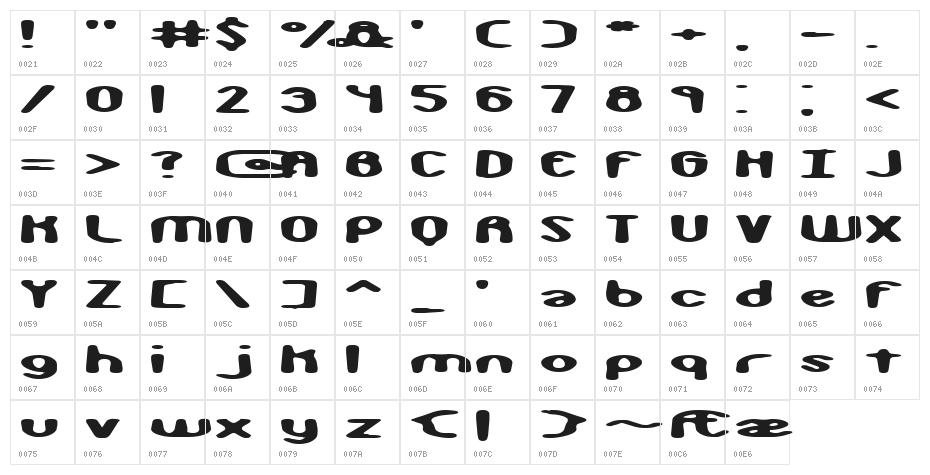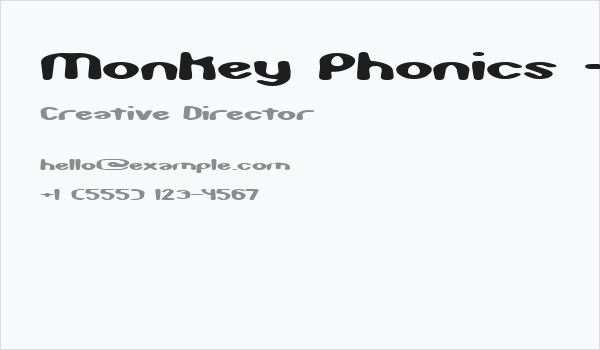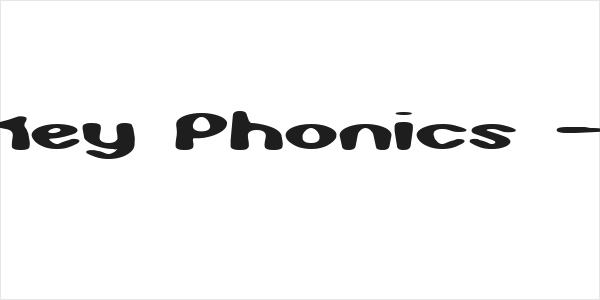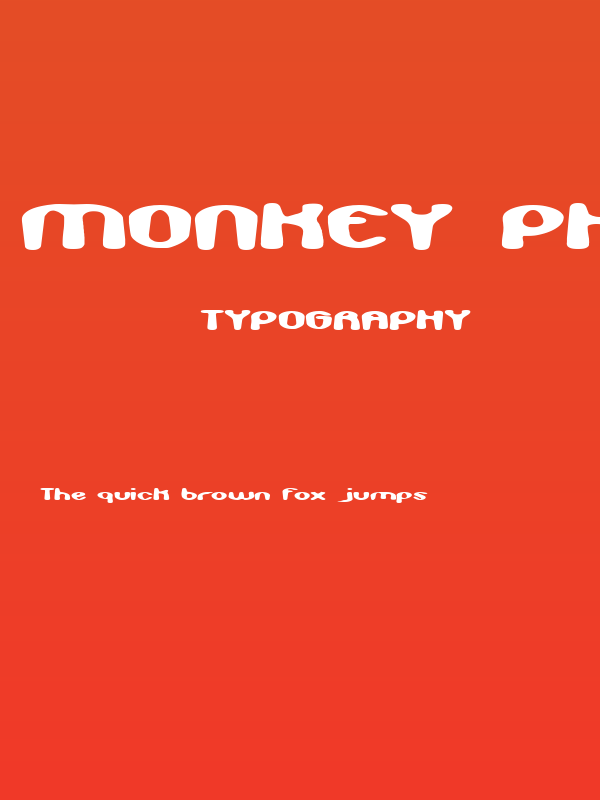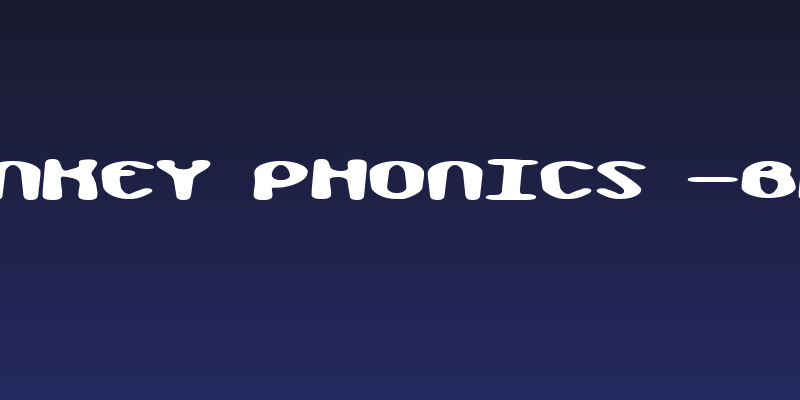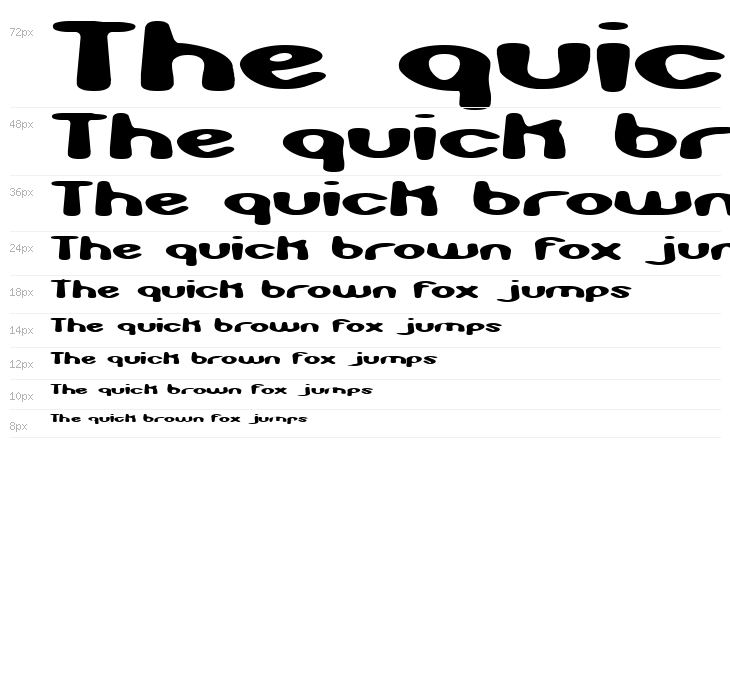
Monkey Phonics -BRK- Font
Monkey Phonics -BRK- Description
This playful and whimsical font features rounded, bubbly characters that exude a sense of fun and creativity. The letters have a consistent thickness, giving them a bold appearance, while maintaining a friendly and approachable style. The font's unique design includes slightly irregular shapes, adding to its charm and making it stand out in any project. The numbers and special characters follow the same playful theme, ensuring a cohesive look across all text elements. This font is perfect for projects that aim to capture attention and convey a lighthearted tone.